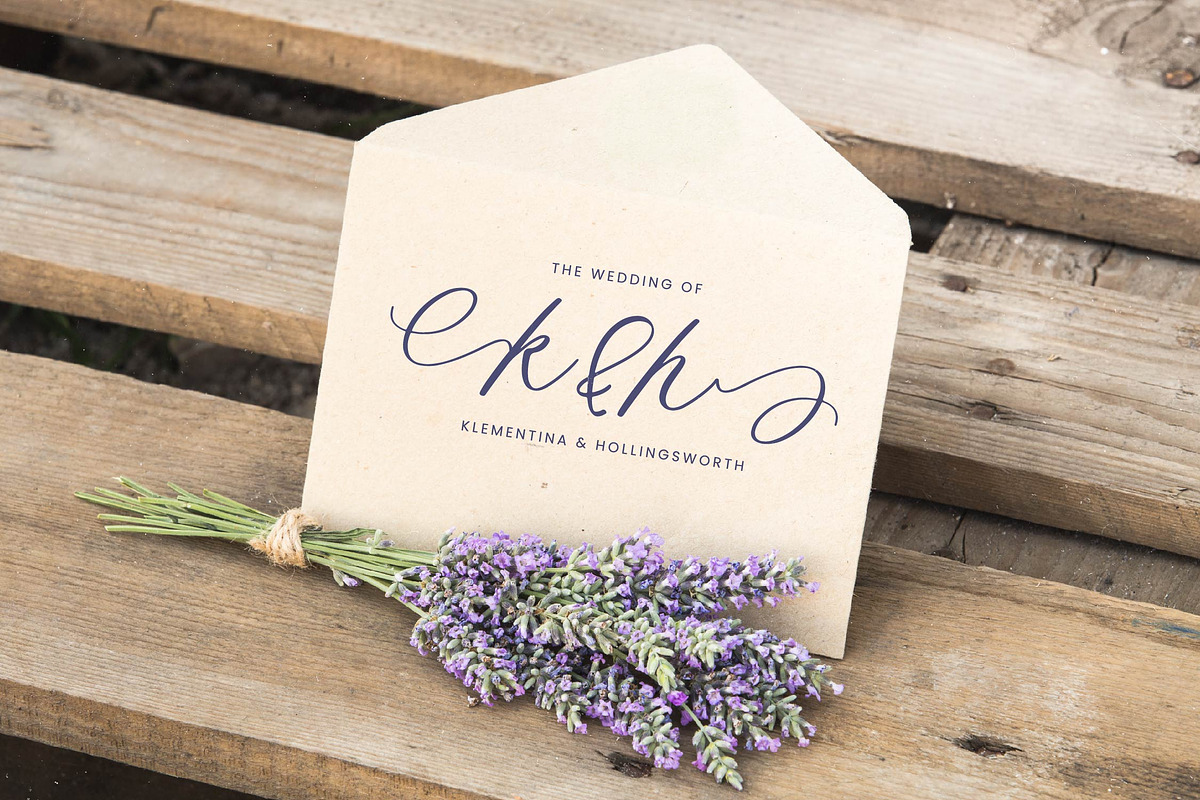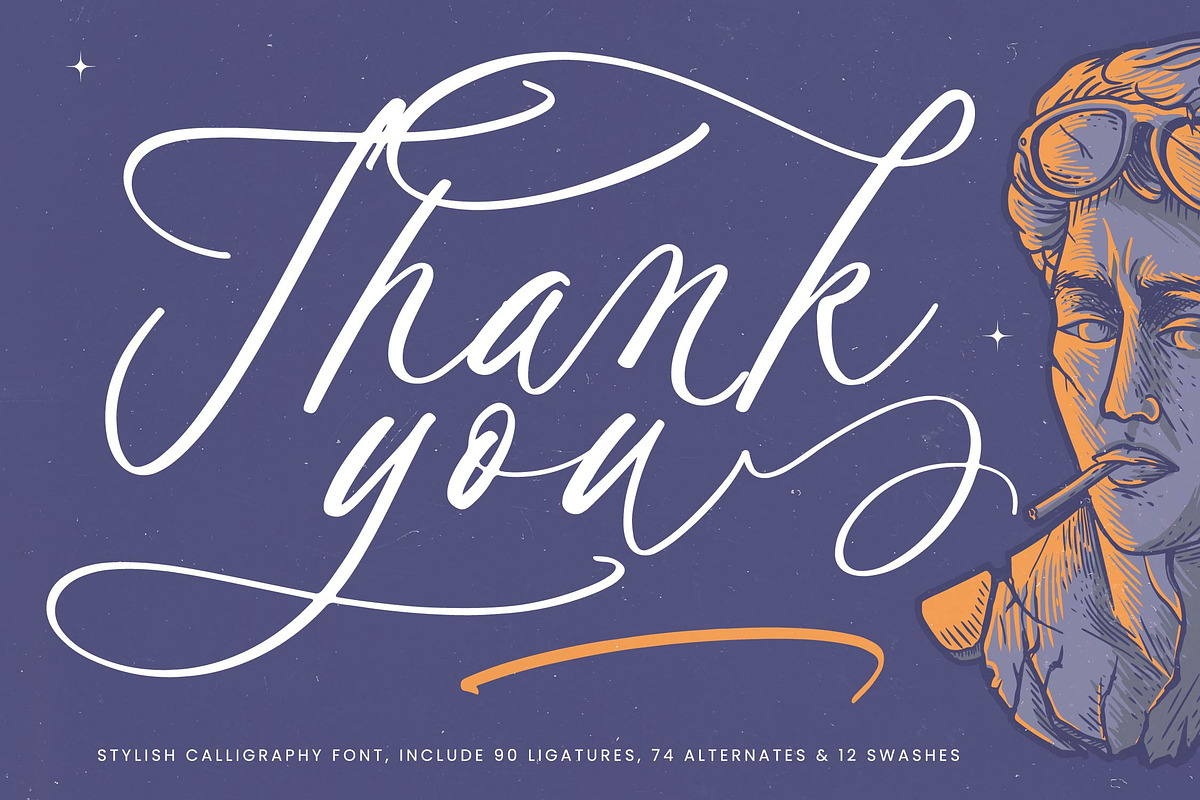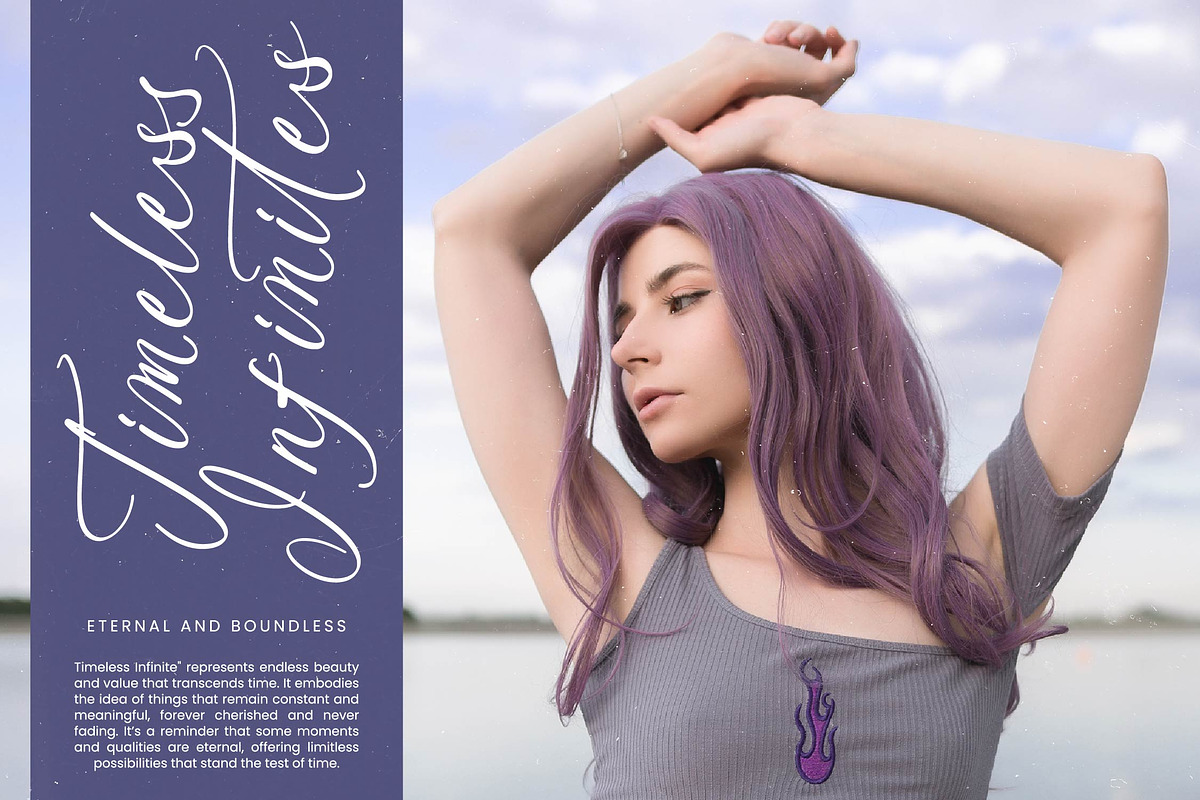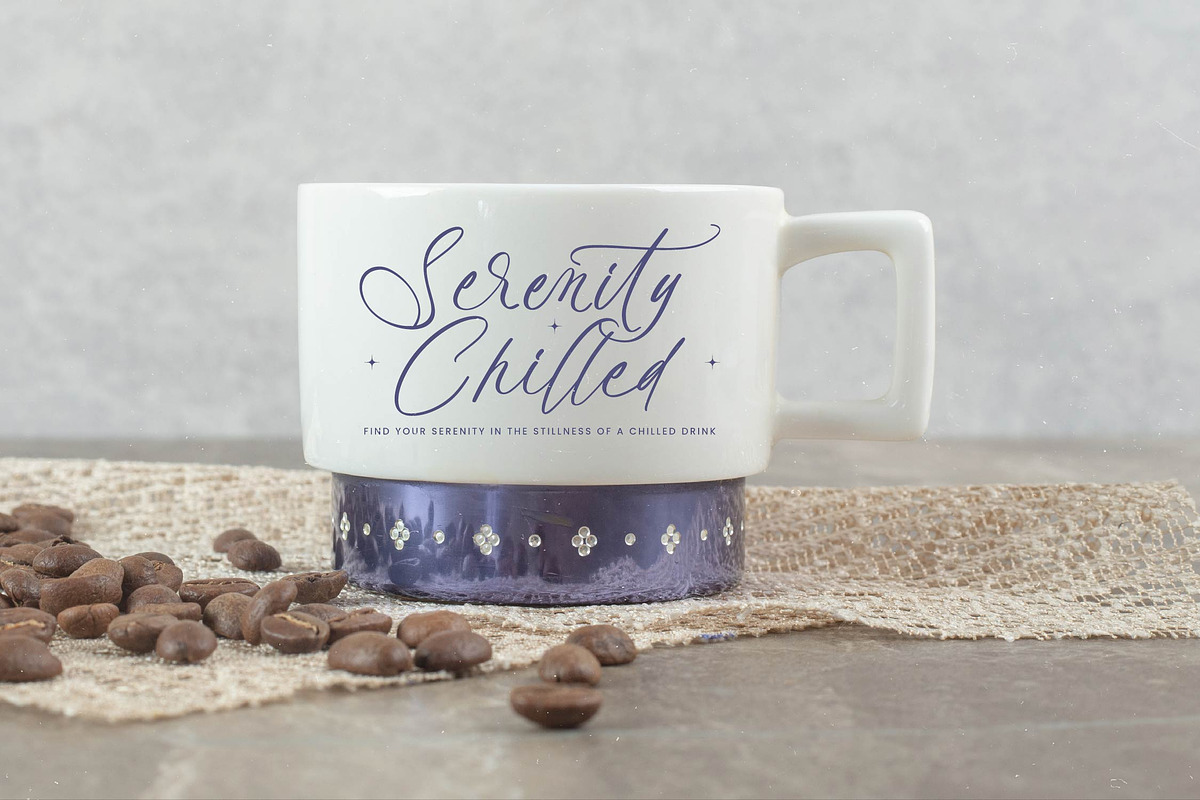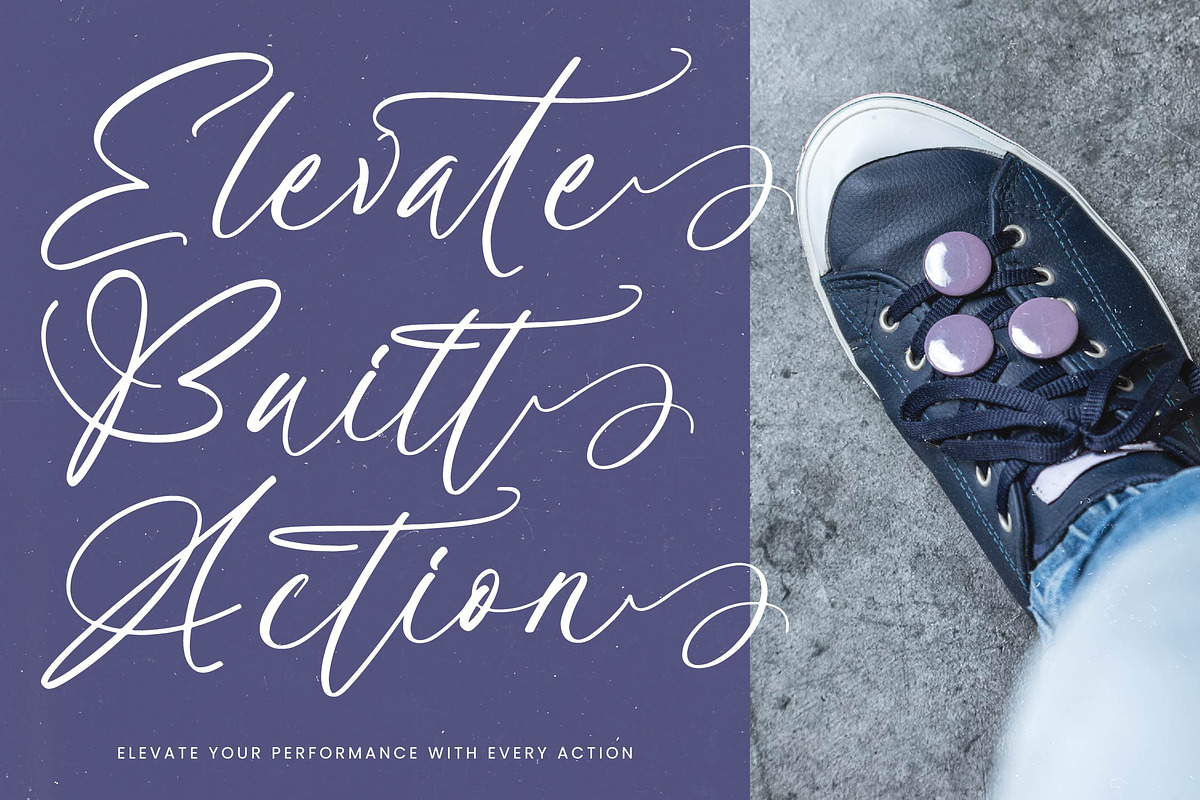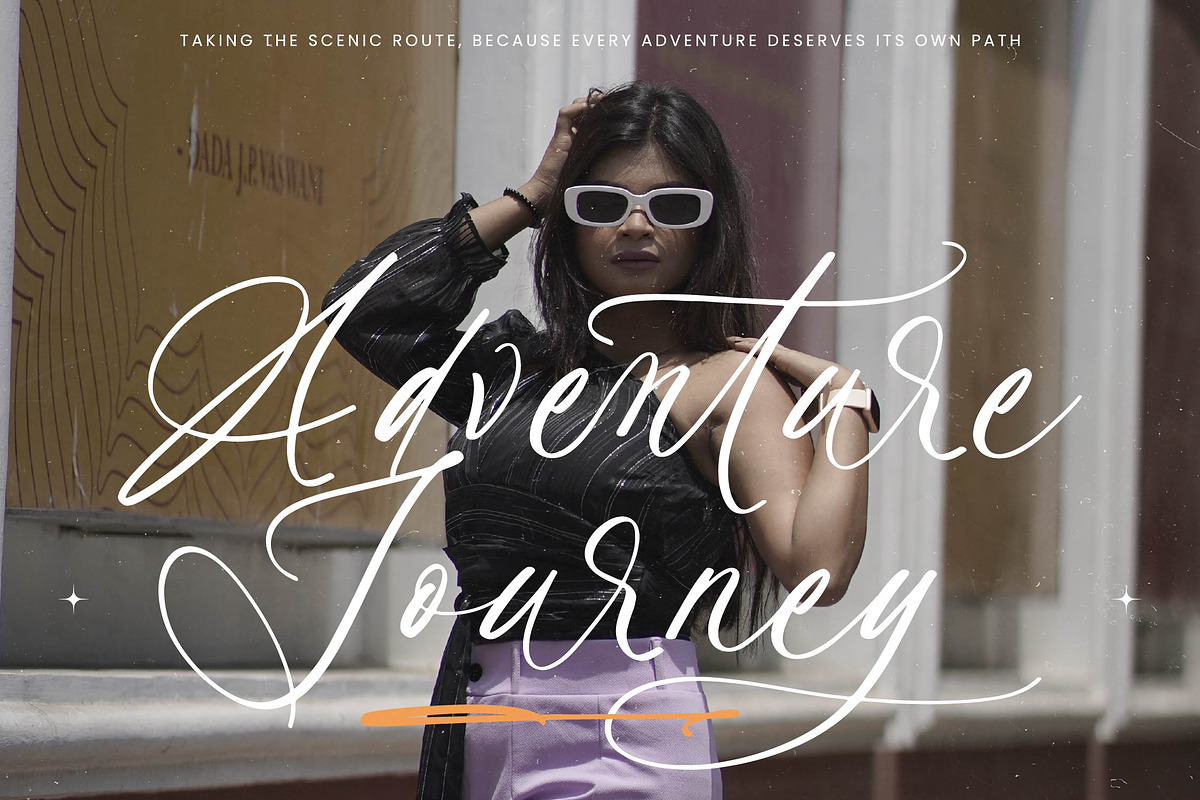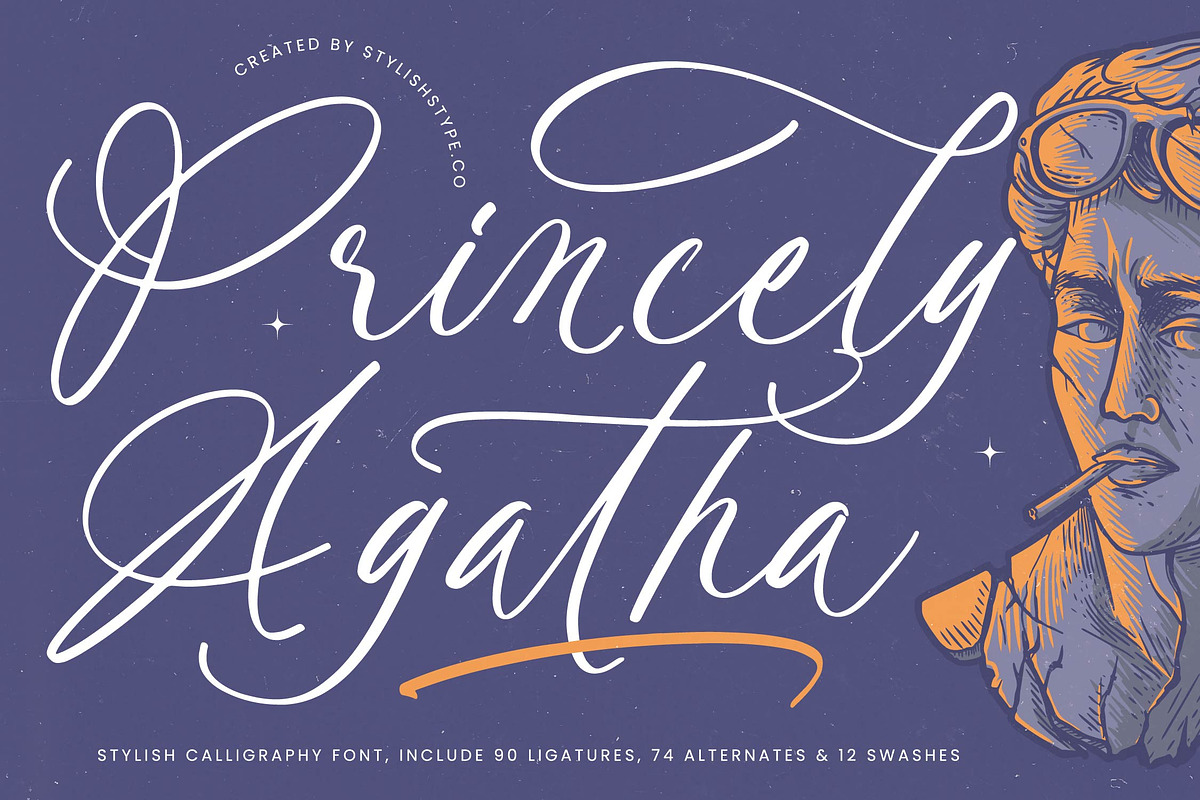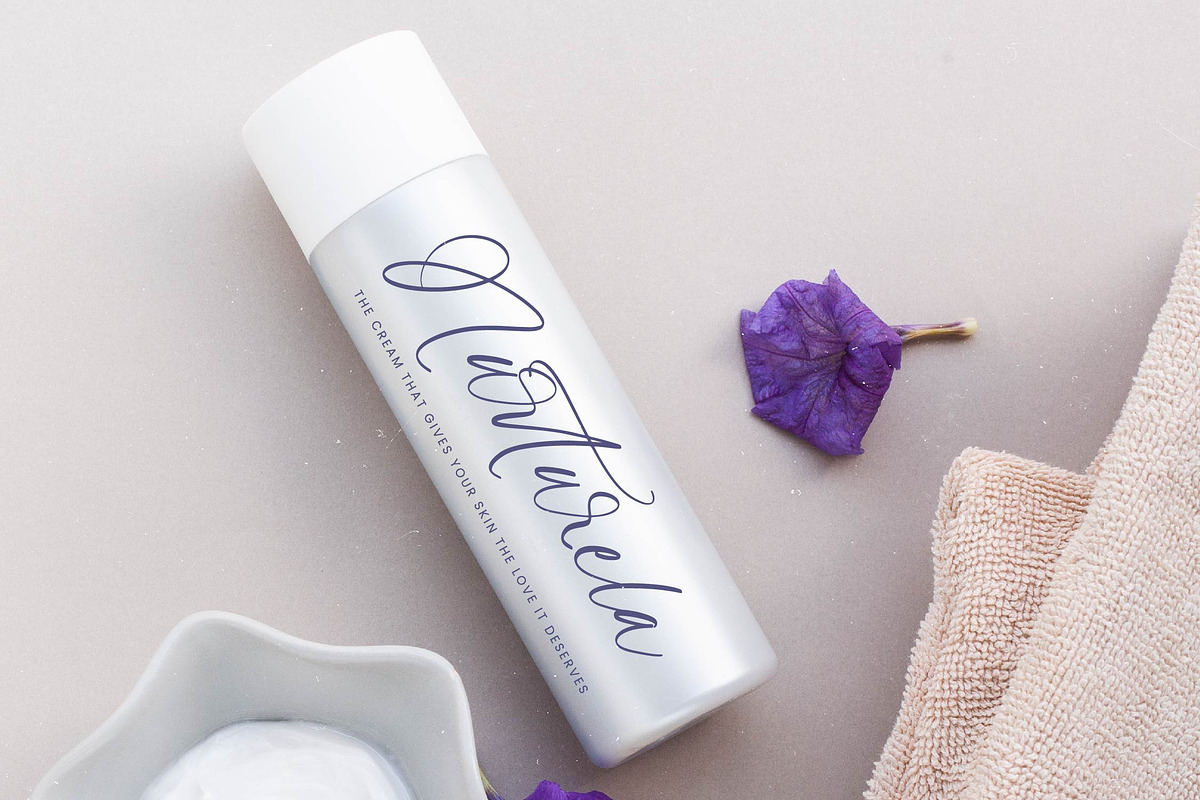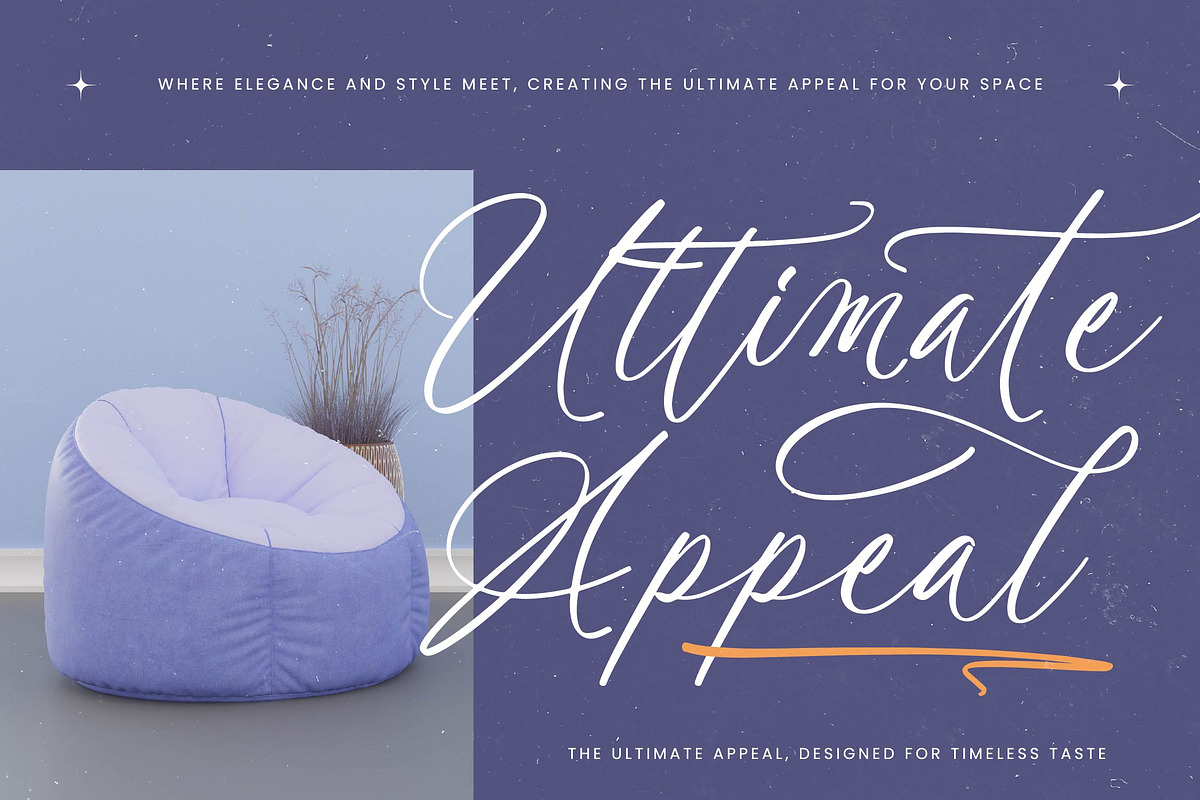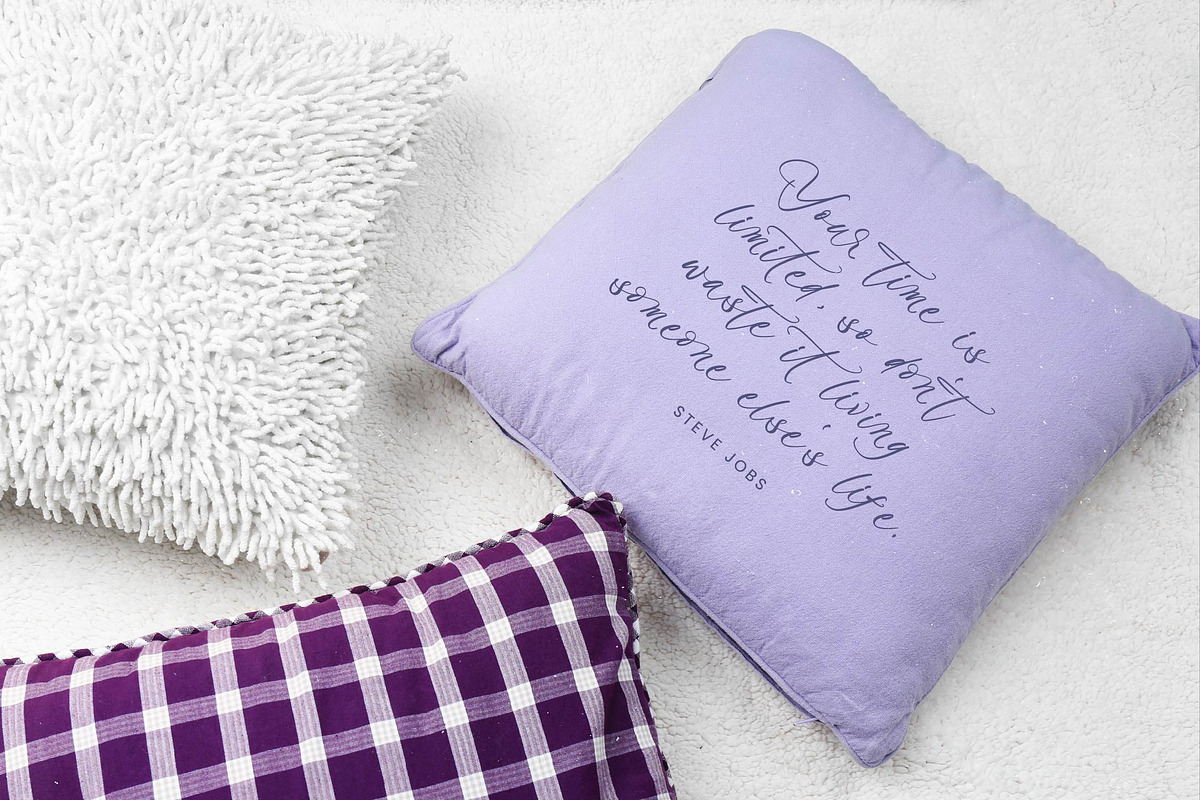
Princely Agatha Stylish Calligraphy
Princely Agatha - Stylish Calligraphy Font , from Stylishtype.Co , Suitable for any projects such as: logos, branding projects, homeware designs, product packaging, mugs, quotes, posters, shopping bags, t-shirts, book covers, name card, invitation cards, greeting cards, label, photography, watermark, special events, and all your other luxury and beautiful projects that need a Luxury Script taste.
- 90 Ligature 74 Alternates & 12 Swashes